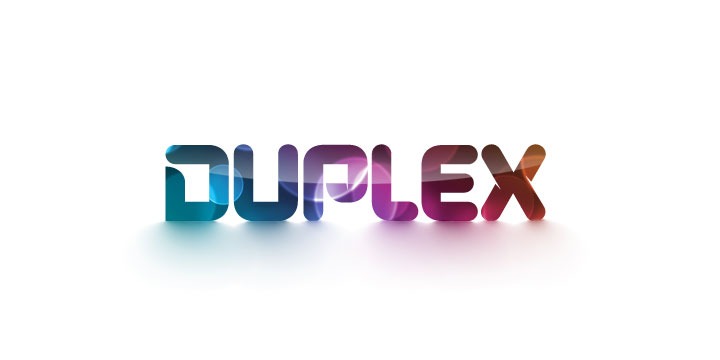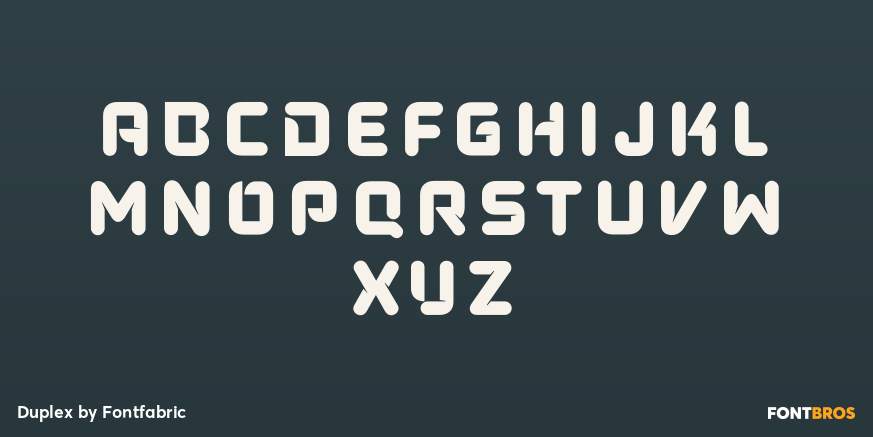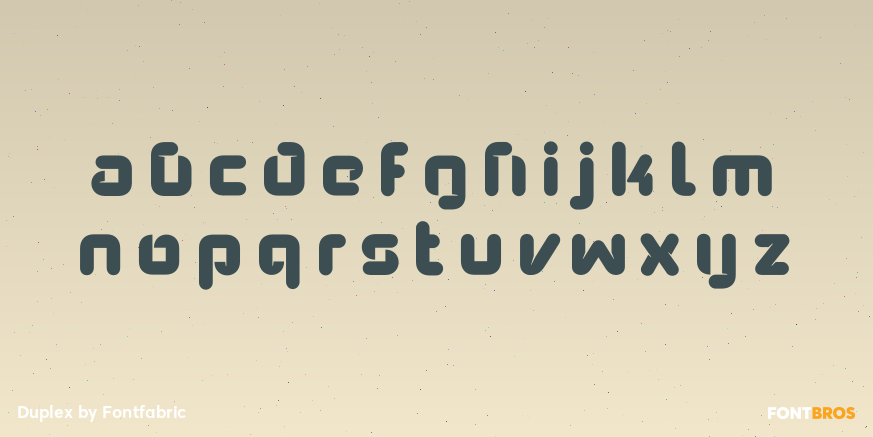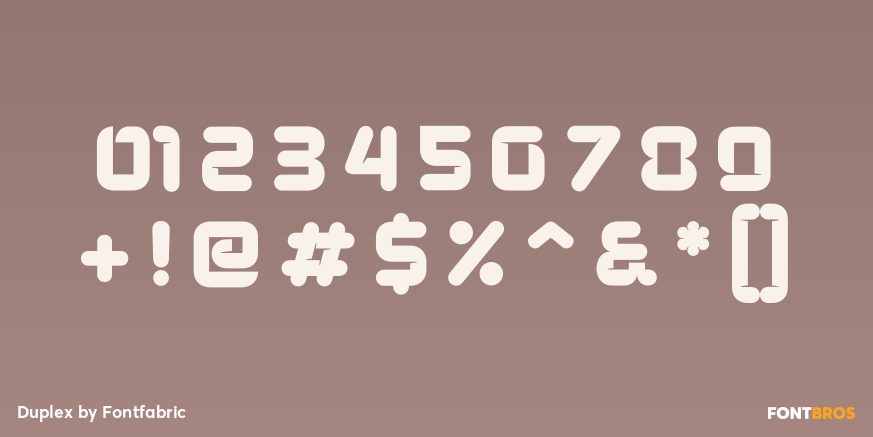
Duplex
Font Family by Fontfabric
Buy NowDuplex is a custom font which is applicable for any type of graphic design - web, print, motion graphics etc and perfect for t-shirts and logos.